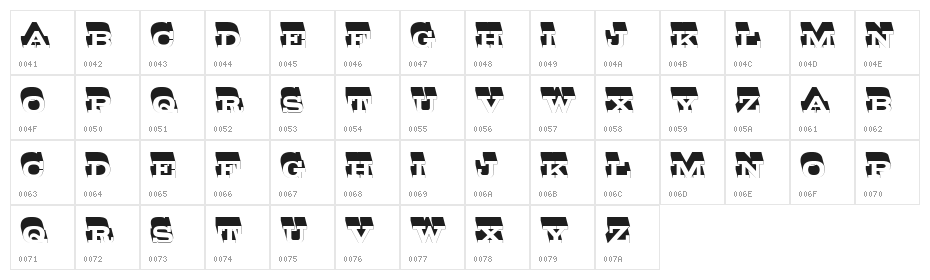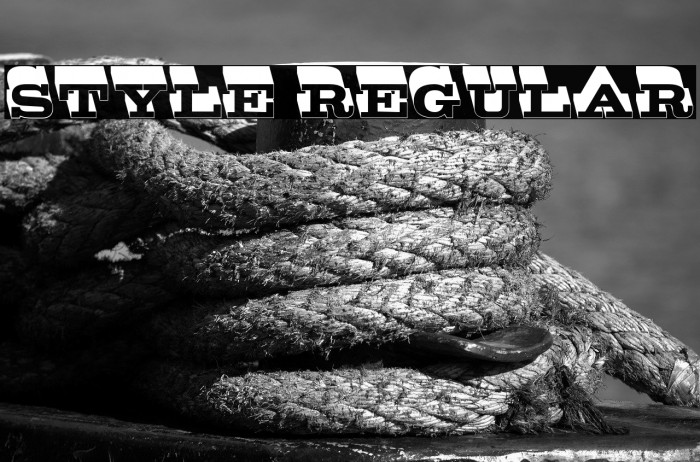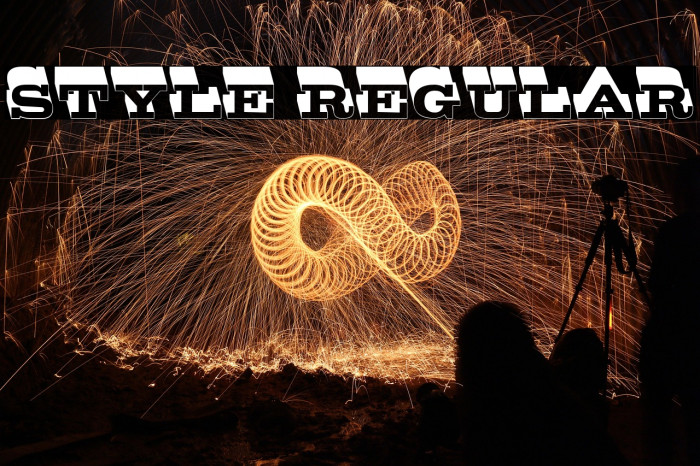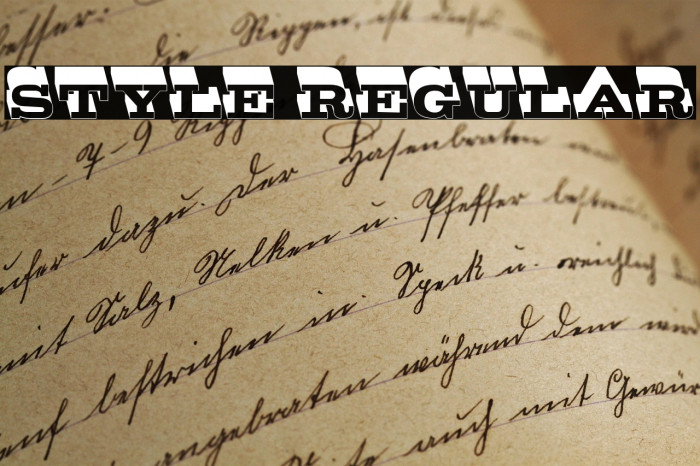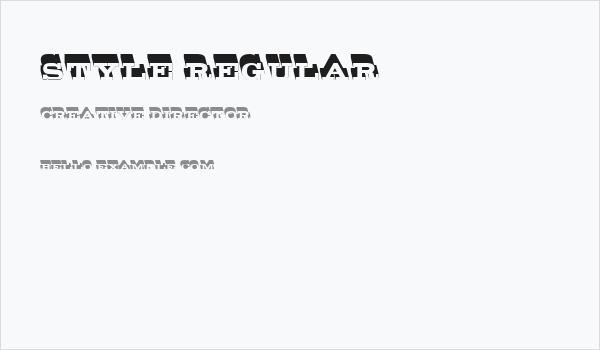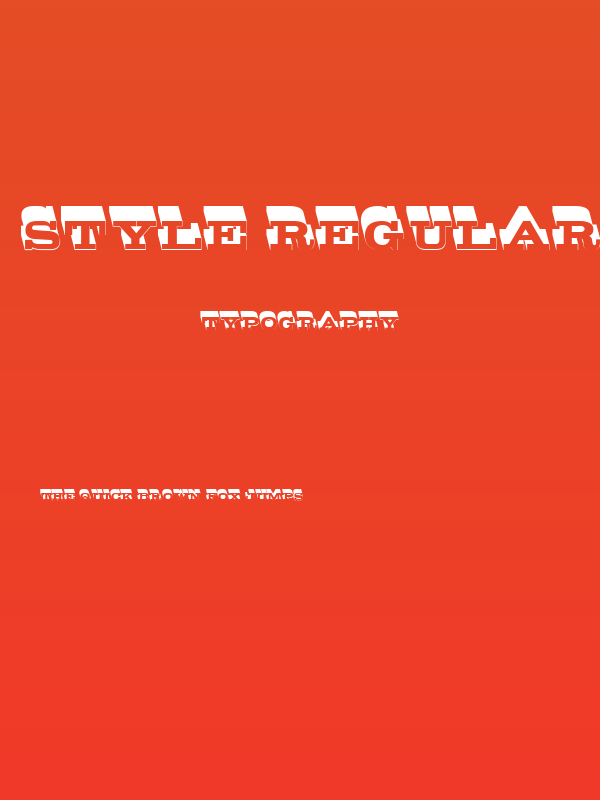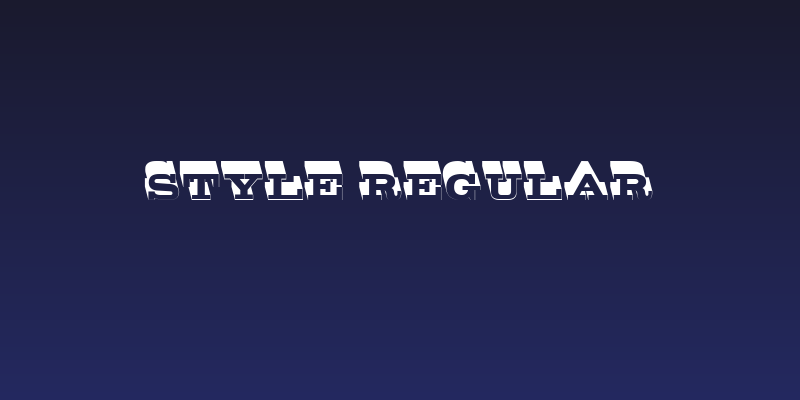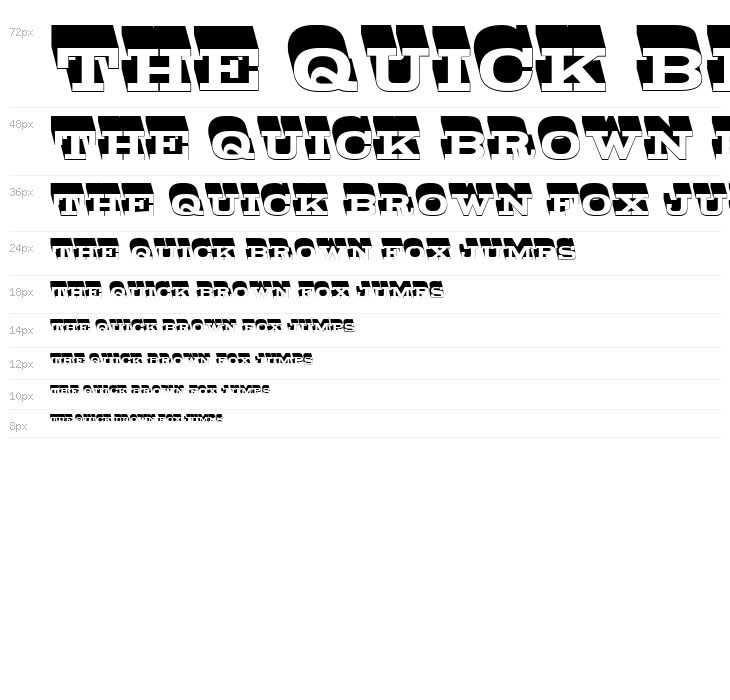
Style Regular Font
Style Regular Description
This font features a bold and impactful design with a three-dimensional shadow effect, giving it a striking and dynamic appearance. The uppercase letters are prominently styled with thick strokes and a solid structure, making them highly visible and attention-grabbing. The shadow effect adds depth and a sense of movement, enhancing the overall visual appeal. The font maintains a consistent width and weight across all characters, ensuring uniformity and balance. Its bold nature makes it suitable for headlines and titles where emphasis is required. The font's unique style is ideal for projects that aim to convey strength and modernity.
| Proposed Projects | Ideal for use in posters, advertisements, logos, and any design requiring a strong visual impact. |